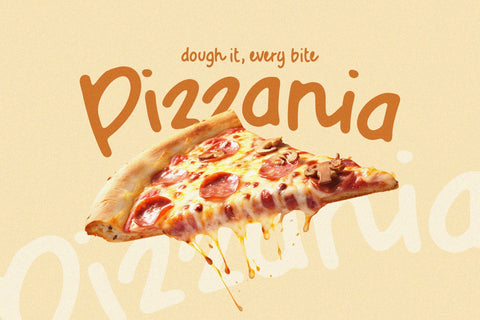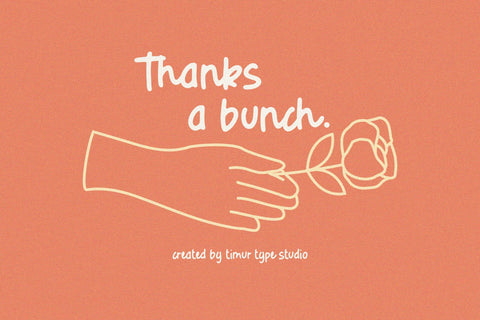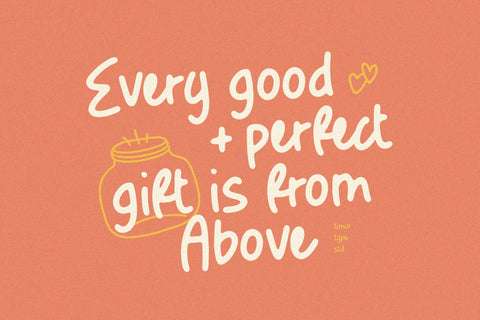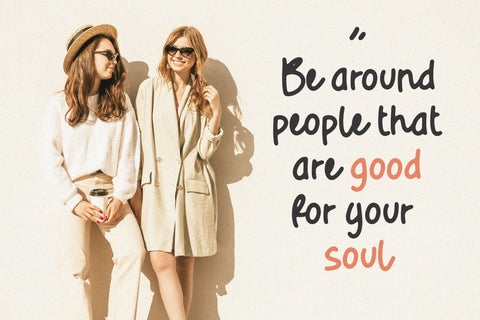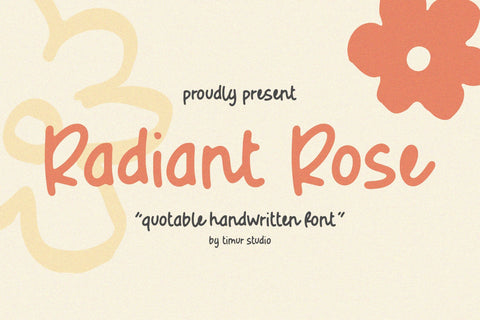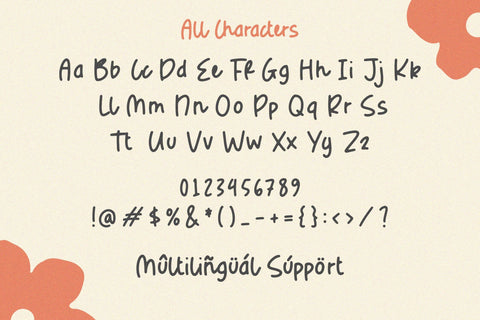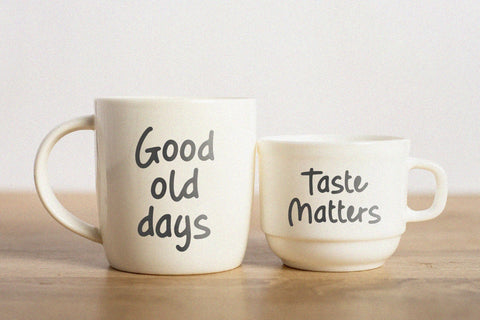
Radiant Rose - Quotable Handwritten Font
Radiant Rose is a Quotable Handwritten Font
This font is a charming handwritten font that captures the essence of elegance and creativity. Its flowing strokes and gentle curves evoke a sense of warmth and personal touch, making it perfect for conveying heartfelt messages or adding a whimsical flair to any design. With each letter crafted with care, Radiant Rose lends a distinct personality to quotes, invitations, and artistic projects, ensuring that every word shines with beauty and grace.
Radiant Rose also supports multilingualism